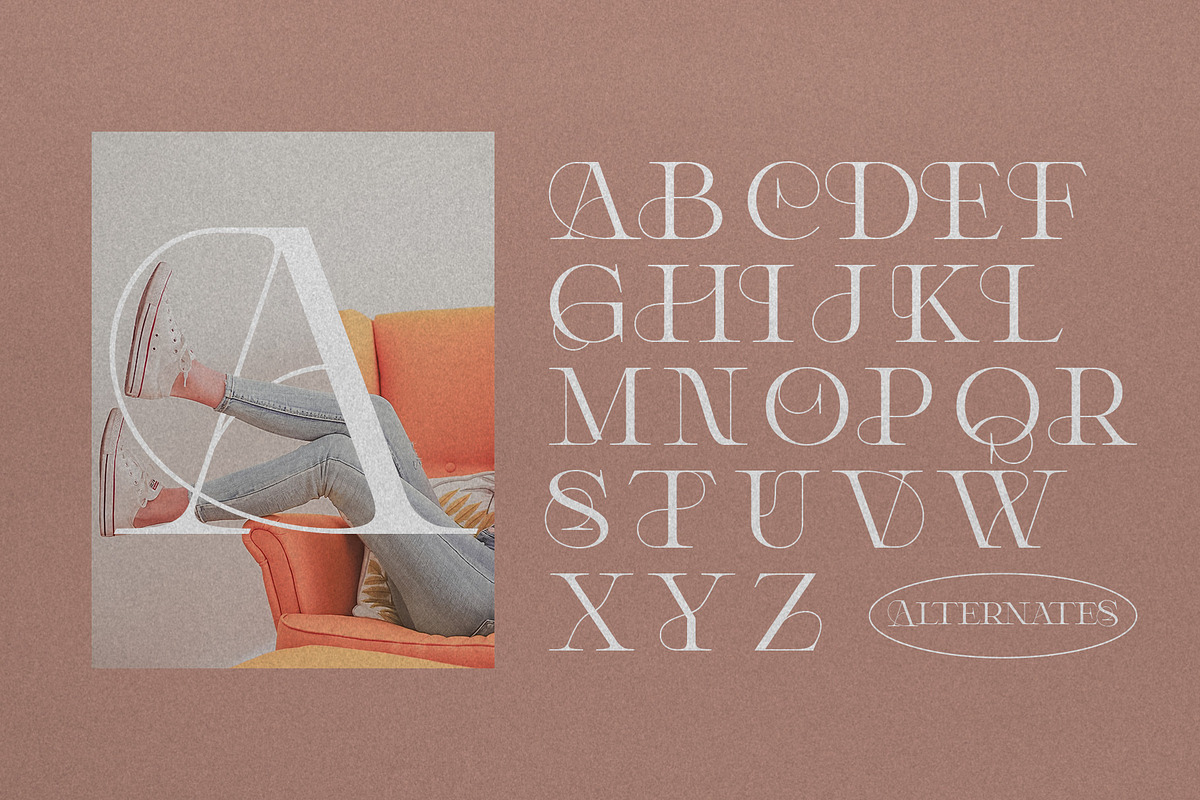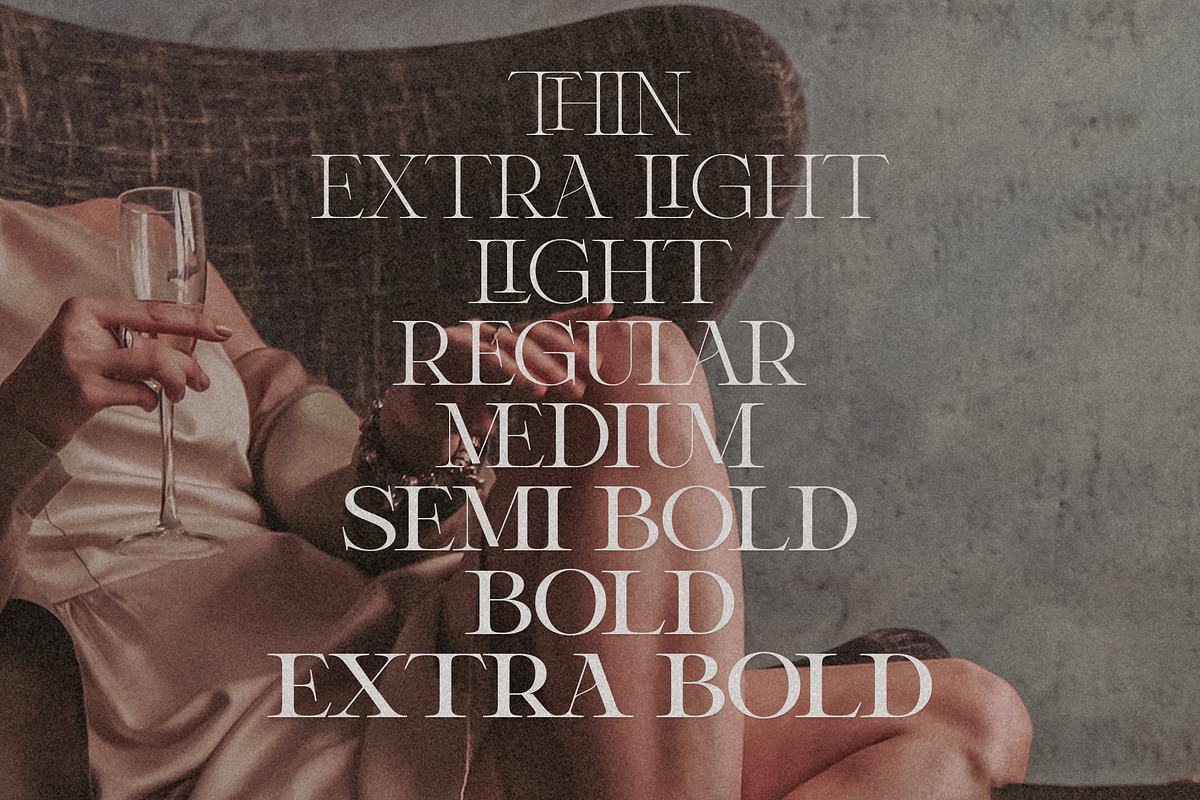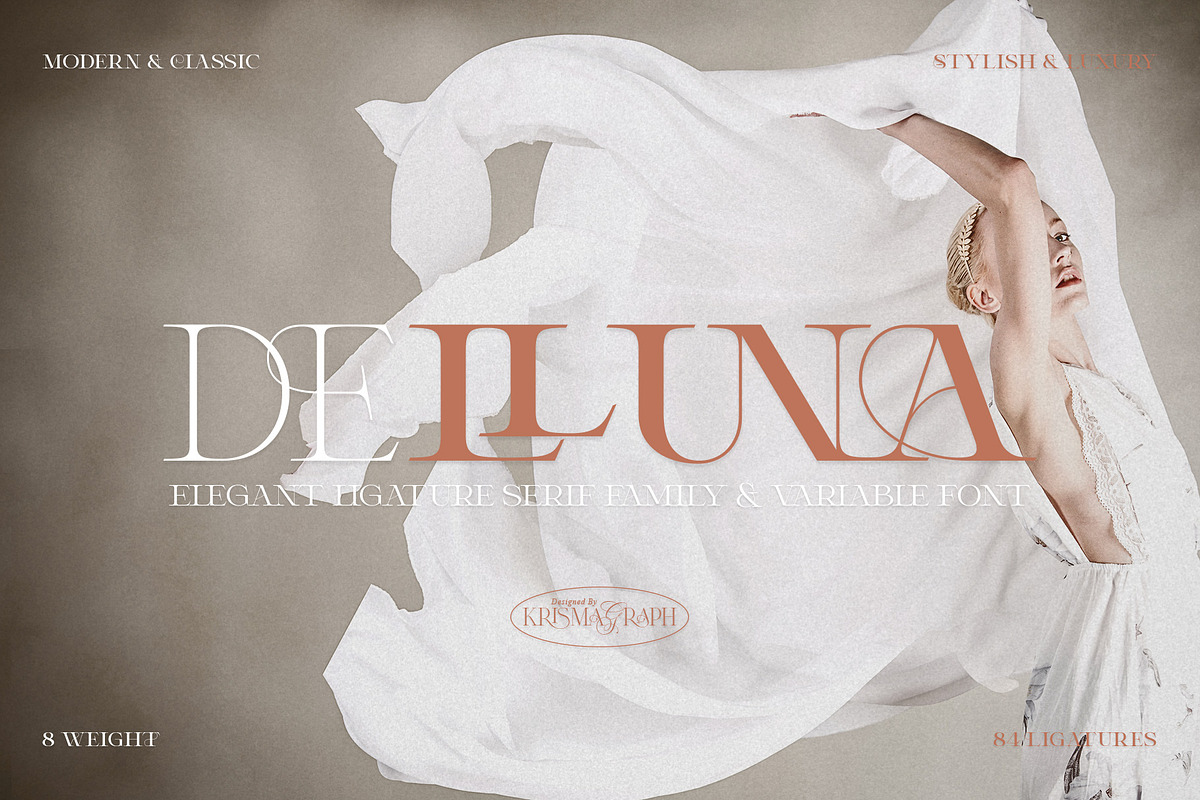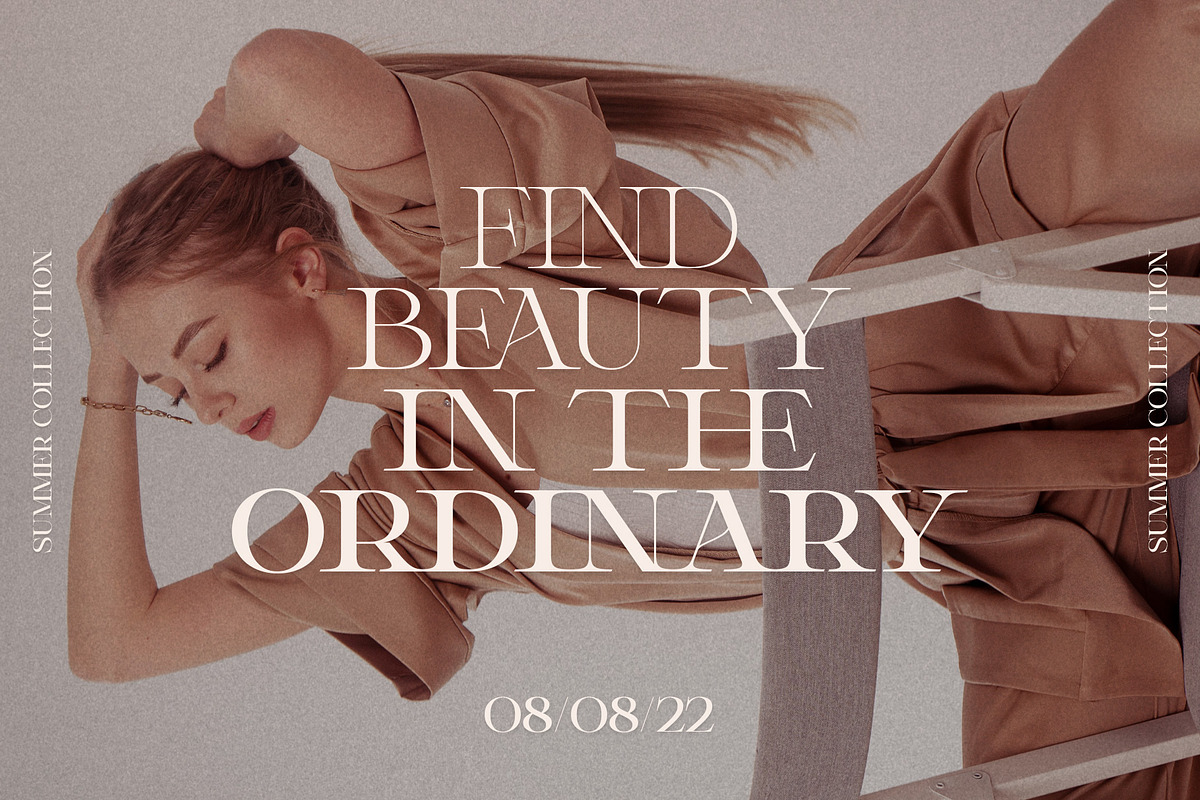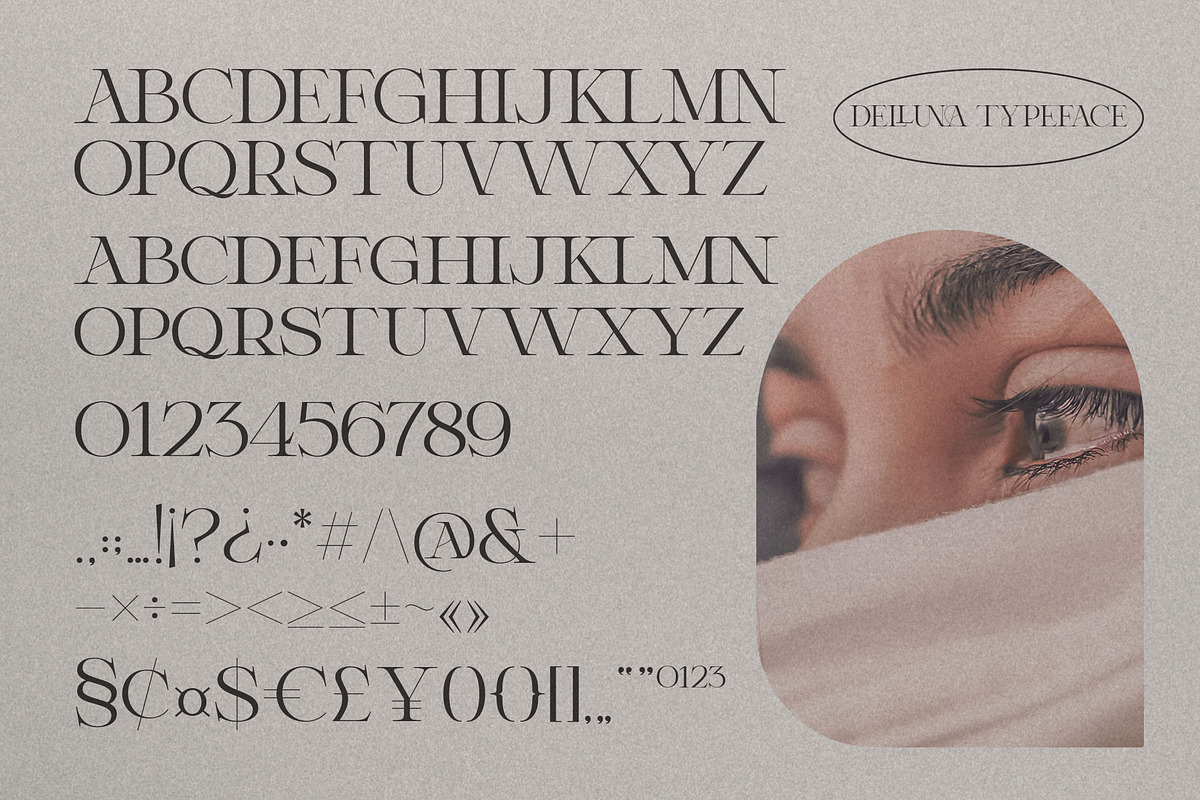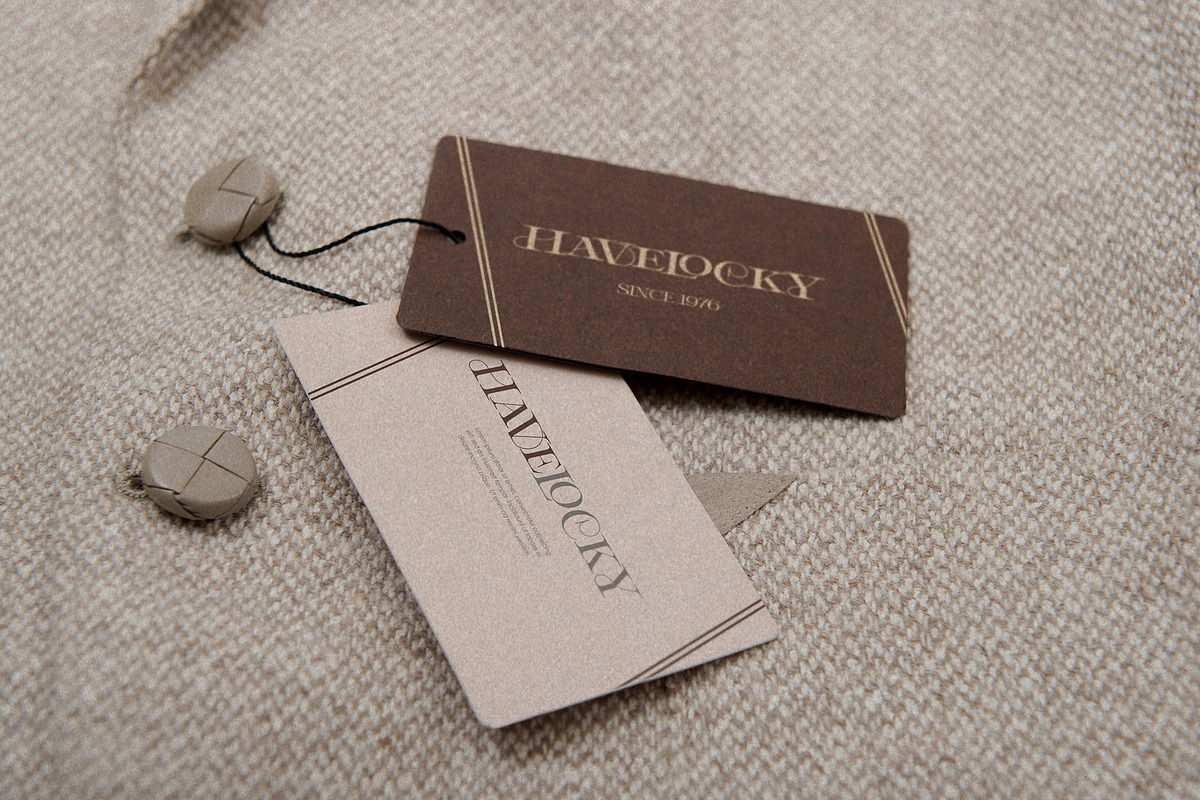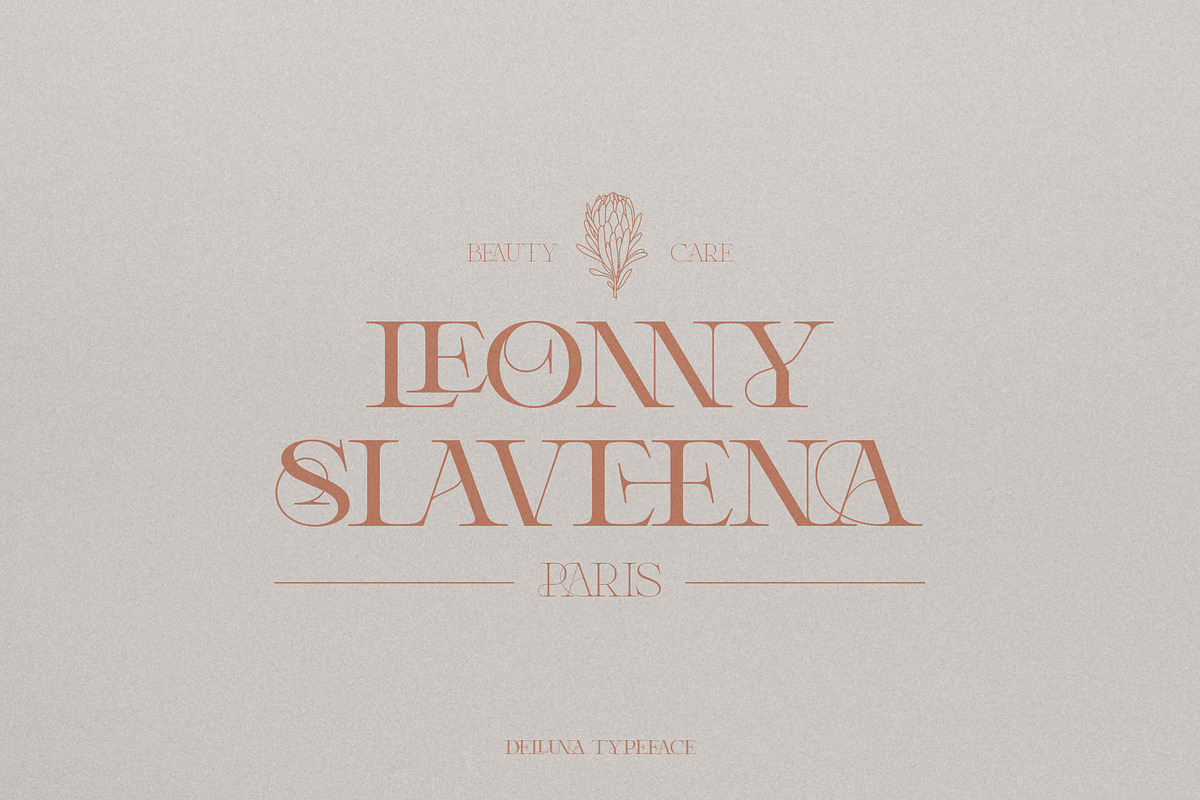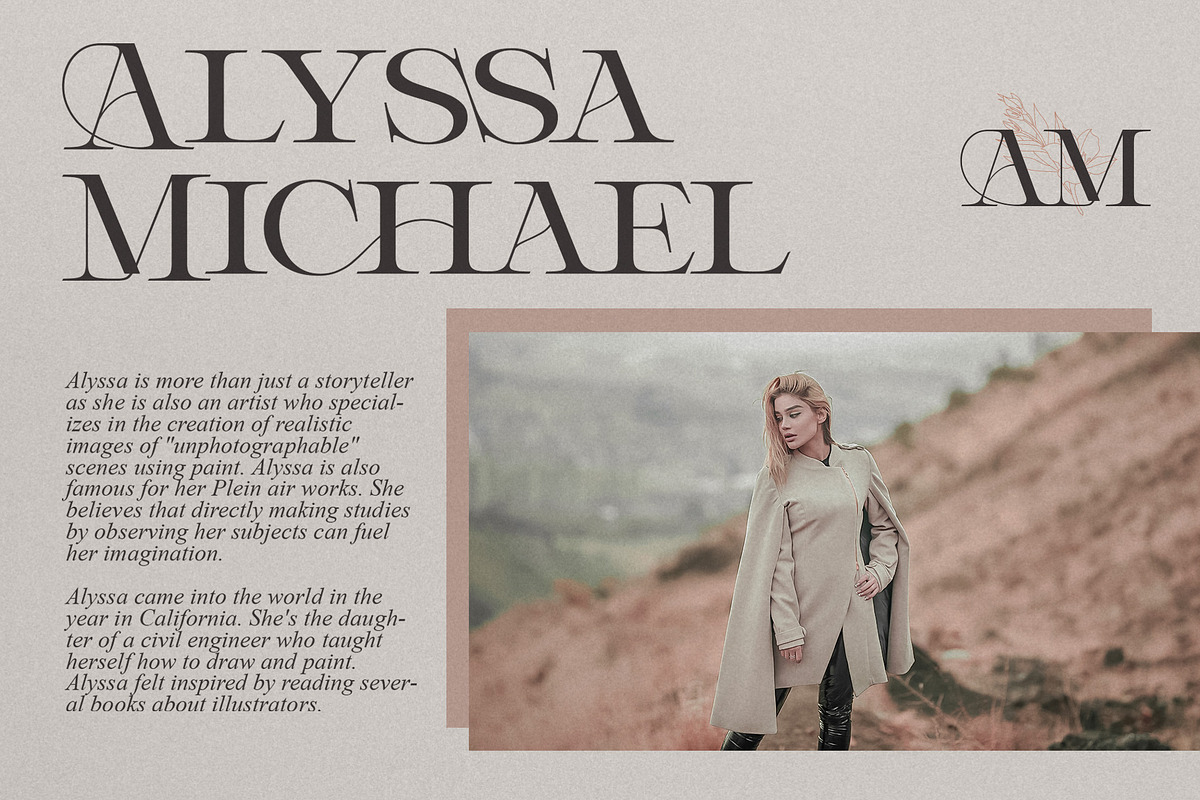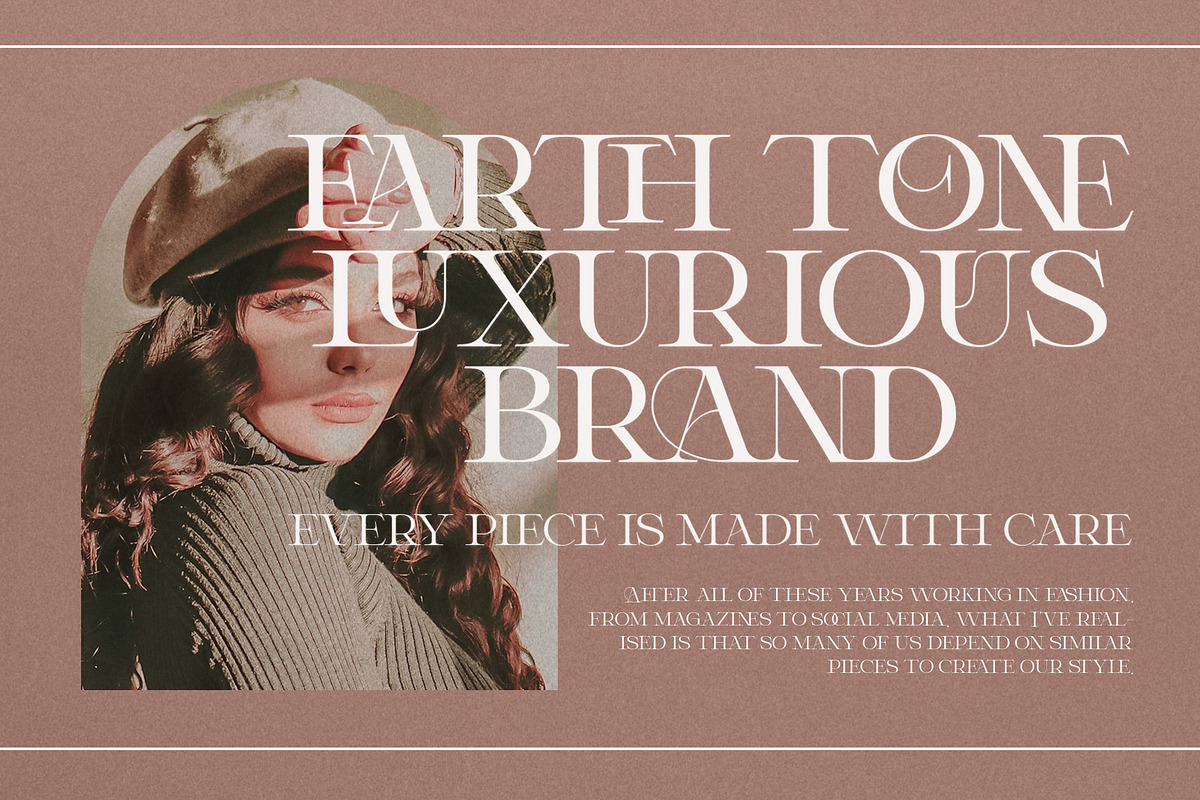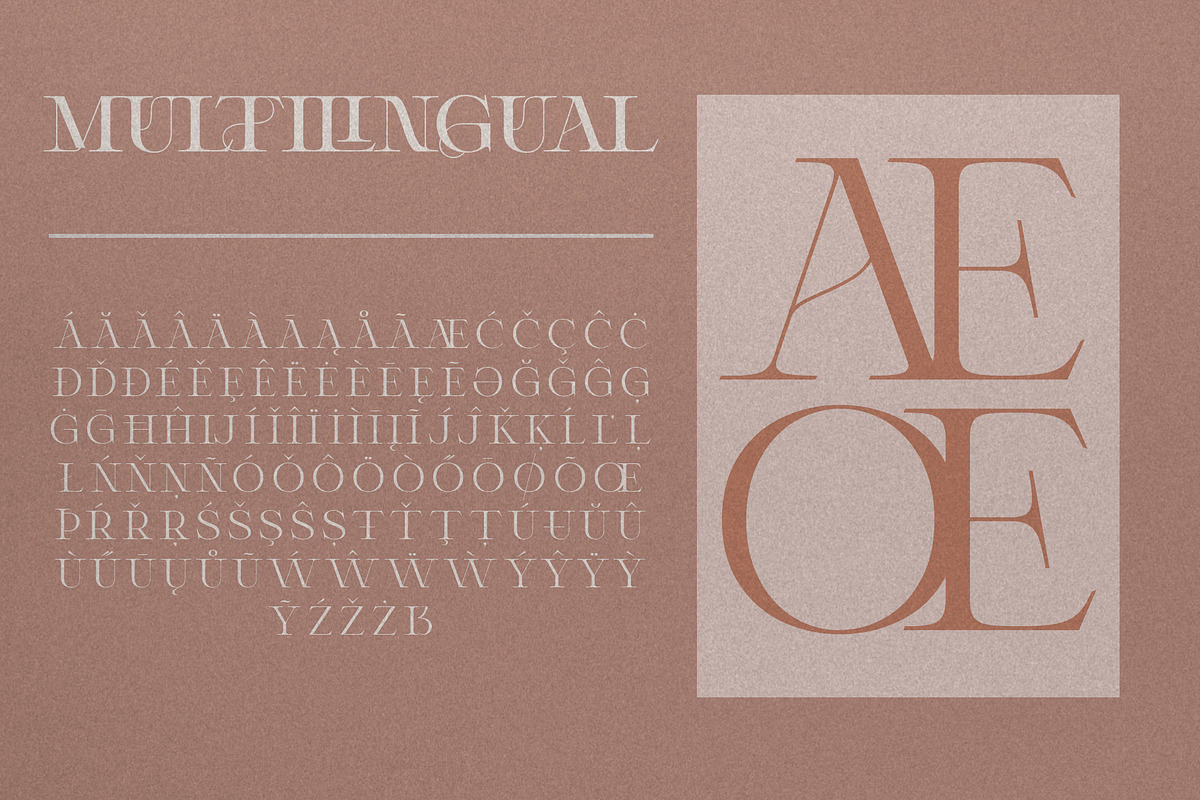
Delluna | Ligature Serif Family
Delluna typeface is an elegant ligature family serif, each of them has eight weights from thin to extra bold. With 84 unique ligatures and alternates.
Delluna typeface is made mainly for headlines, titles, and other short texts and is well-suited for advertising, mood board, branding, logotypes, packaging, titles, editorial design, modern logos, websites, social media quotes, wedding, book covers, magazine, modern and classic design and much more.
- Ligatures & alternates
- Punctuation, number, fraction & symbols